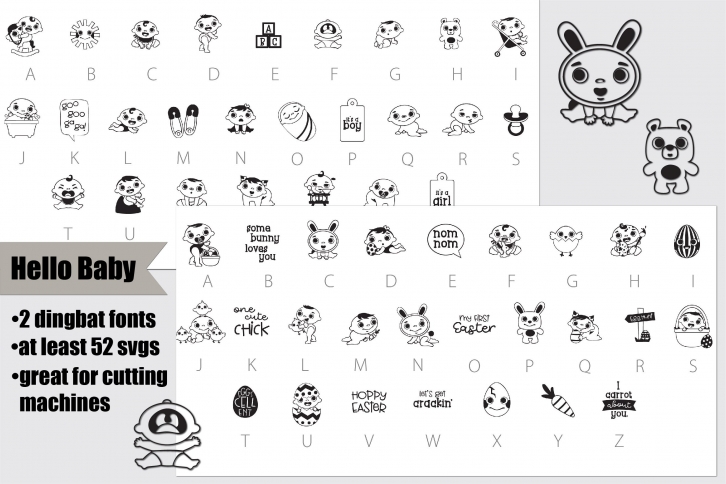
DB Hello Baby is a beautiful font that was designed by Illustration Ink. It's a great choice for designers and creatives who need such a font. It was released on March 22, 2022 and the file size is 19.93 MB. DB Hello Baby may give a more youthful, expressive and casual look to your project. It is a very beautiful, refined, elegant, and high-quality font.